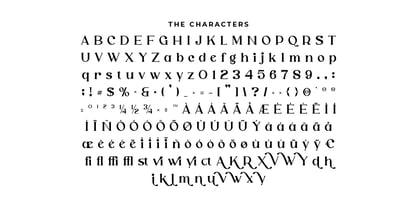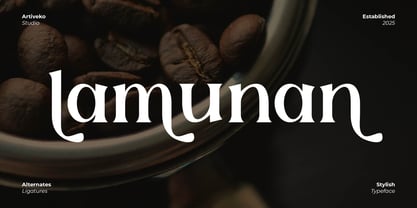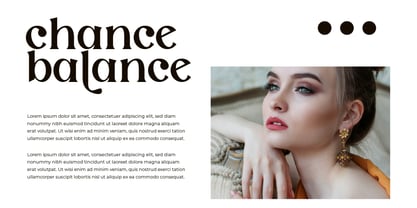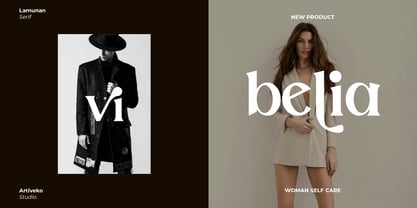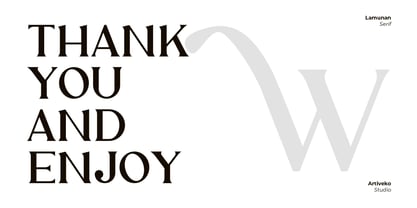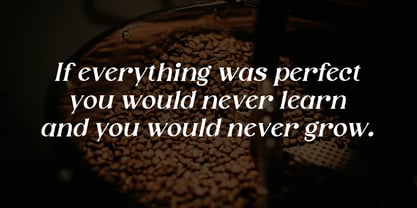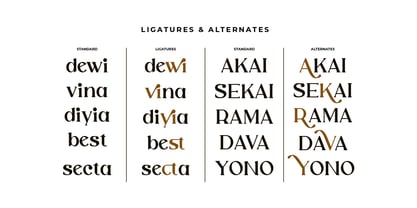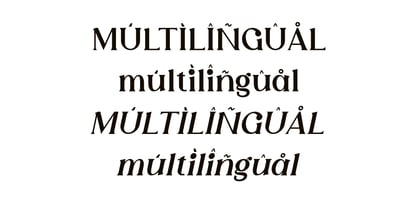
Lamunan
by Artiveko
The Lamunan Font Family was designed by Iwan Alwan and published by Artiveko. Lamunan contains 2 styles and family package options. More about this family
Lamunan is a premium luxury serif font designed with elegance and sophistication in mind. Its refined letterforms, graceful curves, and timeless aesthetics make it perfect for high-end branding, editorial design, wedding invitations, and luxury packaging. With multilingual support, ligatures, and alternates, Lamunan exudes class and exclusivity, making it an ideal choice for projects that demand a touch of prestige and refinement.
Designers: Iwan Alwan
Foundry: Artiveko